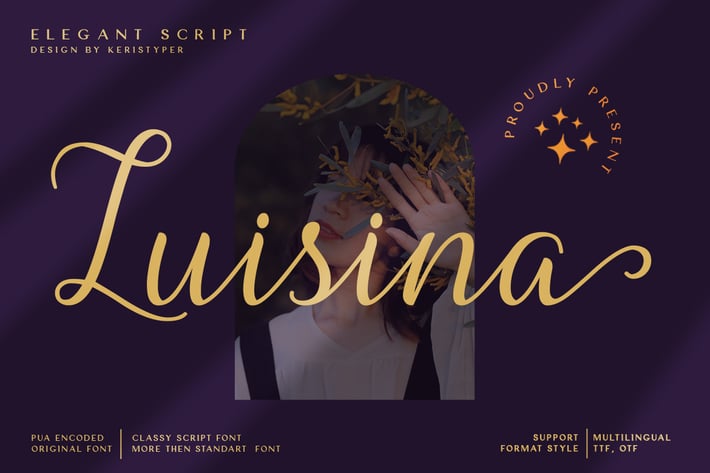
Luisina Classy Script Font
Luisina Script is a handwritten font reflecting calligraphy lettering. This font is inspired by hand-written, pop culture and urban culture. It includes numbers, punctuation, alternates, ligatures, supports other languages. It is perfect for adding a hand-lettered style to your stationery, headlines, branding, and wedding invitation.